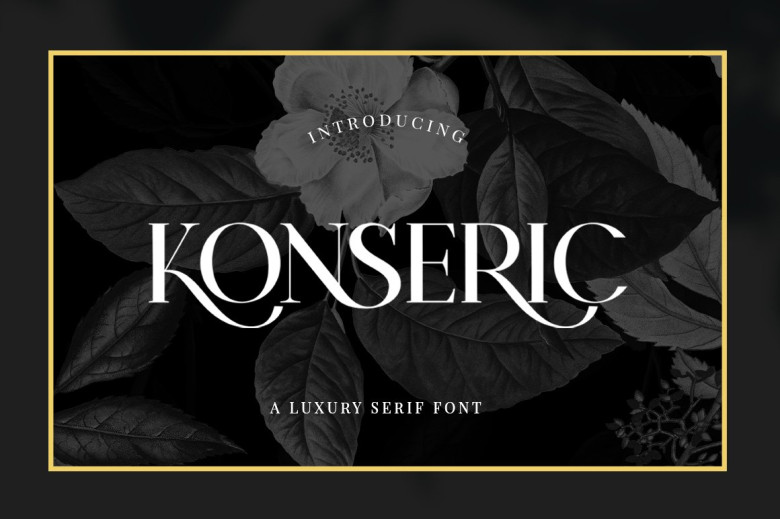
Konseric Font
Konseric is an elegant serif font of classic style, which has been modernized with the unique curves and cut-ins making one of the most memorable top fonts available in the market, the feature of this font representing vintage aesthetics in modern and minimalist ways, making these serif fonts suitable for the whole projects. The fonts include special uppercase letters, alternative characters, and beautiful ties and some multilingual support. This font may be an exciting tool for all creative design.
The font comes with files such as wordmark logos, mastheads, pull quotes and monograms and showing both feminine and masculine qualities, elegant packaging, and invitation cards. In almost all creativity designs.
Konseric Serif Font